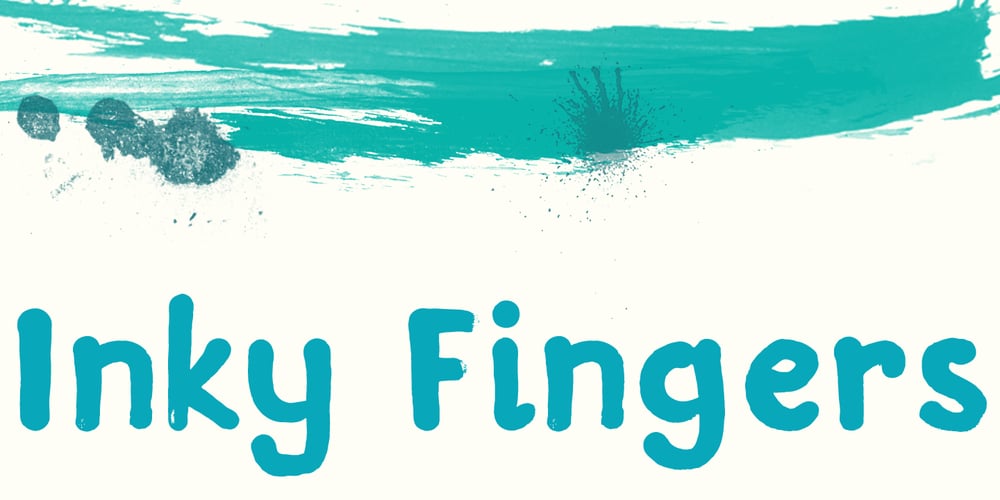
Inky Fingers
Inky Fingers font
Inky Fingers Font Family was designed by David Kerkhoff and published by Hanoded. Inky Fingers contains 2 styles and family package options. Inky Fingers… Well, the name says it all! This rather obese font was made by hand (literally) using my index finger, some sheets of paper and a lot of Chinese ink. As the eco-paper absorbed quite a lot of ink, I had to do a second ink-run! Inky Fingers is a very legible typeface, ideal for headlines, books and posters. It comes with Babylonian language support – including the Schwa/schwa glyphs for the Azeri speaking crowd. Ain’t I nice?